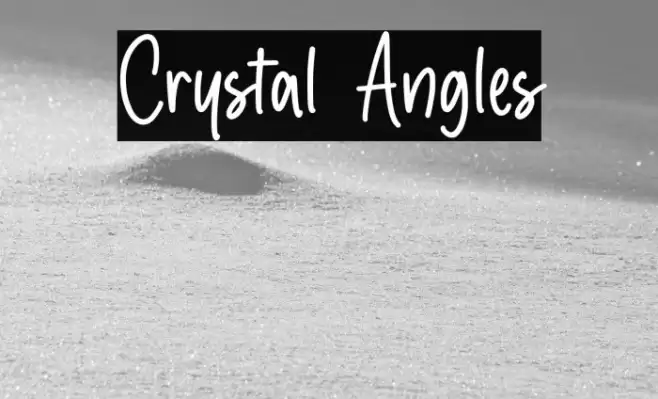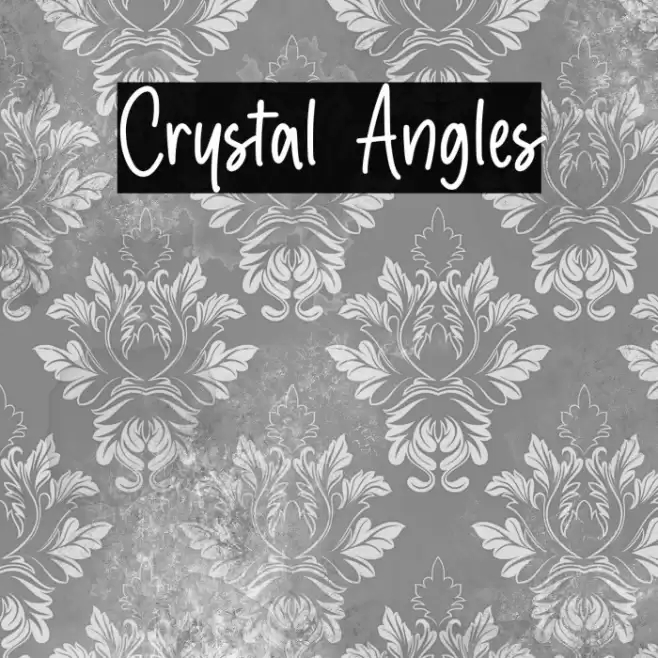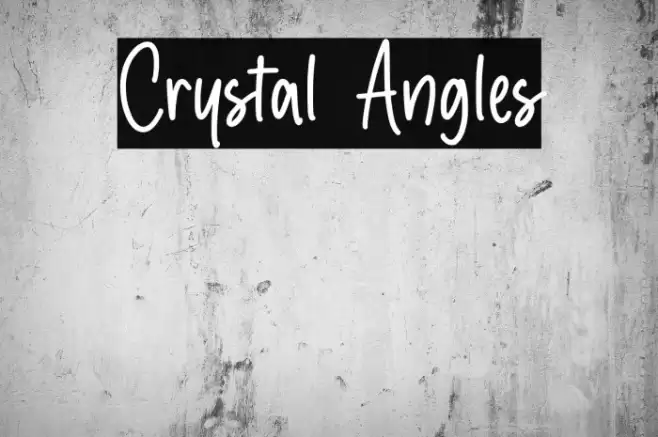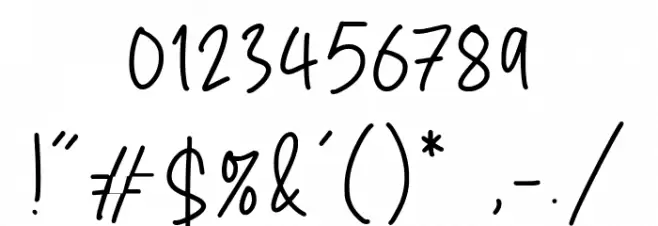
Crystal Angles Font
Crystal Angles Description
This font features a playful and casual handwritten style, characterized by its smooth, flowing lines and slightly irregular letterforms. The uppercase letters are tall and narrow, while the lowercase letters maintain a consistent height, giving the font a cohesive appearance. The numerals are rounded and match the overall informal style. Special characters are included, maintaining the same playful aesthetic. The font's overall look is friendly and approachable, making it suitable for a variety of creative projects.
A playful, casual handwritten font with smooth, flowing lines from Uncategorized fonts.
- Proposed Projects: Ideal for greeting cards, invitations, personal branding, and social media graphics.
- Overall Style: Casual
- Use Case: Headlines, Logos, Informal text